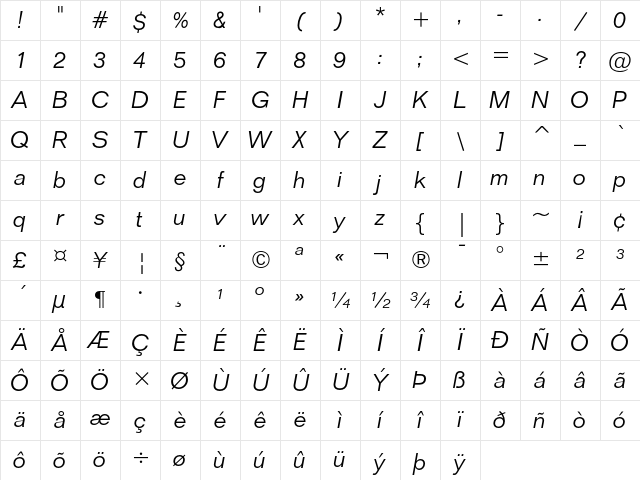
Folio Light Italic
Design Context for Folio
Folio is a composed and adaptable typeface that performs quietly and consistently across a wide range of design contexts. The slanted form adds forward momentum and visual energy. Its slender proportions lend an understated elegance to any composition.
Pro Tip: Use Folio for emphasis, pull quotes, and subheadings where its slanted energy can add rhythm to the layout.